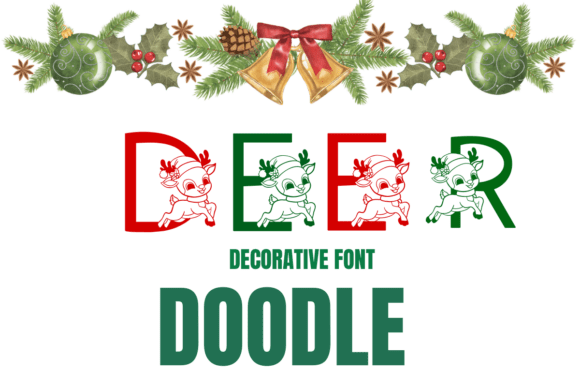
Deer Doodle Font: A Fun and Festive Decorative Display Font for Holiday Designs
The Deer Doodle Font is a delightful and charming decorative display font that is perfect for adding a touch of festive fun to your holiday designs. This unique font combines playful letterforms with adorable reindeer illustrations, creating a whimsical and cheerful look that is sure to delight both kids and adults alike.
What is Deer Doodle Font?
Deer Doodle is a fun and festive decorative display font that features hand-drawn reindeer illustrations paired with playful letterforms. Each uppercase letter is uniquely paired with a hand-drawn reindeer doodle, creating a one-of-a-kind holiday-inspired look that feels both cheerful and creative.
Key Features of Deer Doodle Font
- Unique Letterforms: Each uppercase letter is uniquely paired with a hand-drawn reindeer doodle, creating a whimsical and festive look.
- Playful Reindeer Illustrations: The font features adorable reindeer illustrations that add a touch of fun and personality to your designs.
- Solid and Outlined Styles: The font offers both solid and outlined styles, giving you the flexibility to mix and match to suit your design.
- Child-Friendly Vibe: The font has a charming, child-friendly vibe that is perfect for kids’ holiday crafts, classroom activities, and festive social media posts.
- Bold Character Structure: The font has a bold character structure that makes it easy to read and perfect for use in a variety of design projects.
Uses for Deer Doodle Font
The Deer Doodle Font is perfect for a variety of holiday design projects, including:
- Christmas Cards: Add a touch of festive fun to your Christmas cards with the Deer Doodle Font.
- Kids’ Holiday Crafts: The font is perfect for kids’ holiday crafts, such as making holiday decorations, gift tags, and cards.
- Winter Party Invitations: Use the Deer Doodle Font to create festive and fun winter party invitations.
- Classroom Activities: The font is perfect for classroom activities, such as making holiday-themed worksheets, posters, and presentations.
- Festive Social Media Posts: Use the Deer Doodle Font to add a touch of festive fun to your social media posts.
Benefits of Using Deer Doodle Font
The Deer Doodle Font offers a range of benefits, including:
- Easy to Read: The font has a bold character structure that makes it easy to read, even at small sizes.
- Versatile: The font is perfect for use in a variety of design projects, from Christmas cards to festive social media posts.
- Fun and Festive: The font adds a touch of fun and festivity to your designs, making it perfect for holiday projects.
- Child-Friendly: The font has a charming, child-friendly vibe that is perfect for kids’ holiday crafts and classroom activities.
Tips for Using Deer Doodle Font
Here are some tips for using the Deer Doodle Font:
- Use it in Combination with Other Fonts: The Deer Doodle Font pairs well with other fonts, so feel free to use it in combination with other fonts to add visual interest to your designs.
- Experiment with Different Colors: The font looks great in a range of colors, so experiment with different colors to find the perfect look for your design.
- Use it to Add a Personal Touch: The Deer Doodle Font is perfect for adding a personal touch to your designs, so use it to make your designs stand out.
The Deer Doodle Font is a fun and festive decorative display font that is perfect for adding a touch of holiday cheer to your designs. With its unique letterforms, playful reindeer illustrations, and bold character structure, this font is sure to delight both kids and adults alike. Whether you’re making Christmas cards, kids’ holiday crafts, or festive social media posts, the Deer Doodle Font is the perfect choice.